Awesome Trending Fonts 2021 Ideas
Awesome Trending Fonts 2021 Ideas. An evolution from the functional sans serif. Web here are some popular fonts from this family.
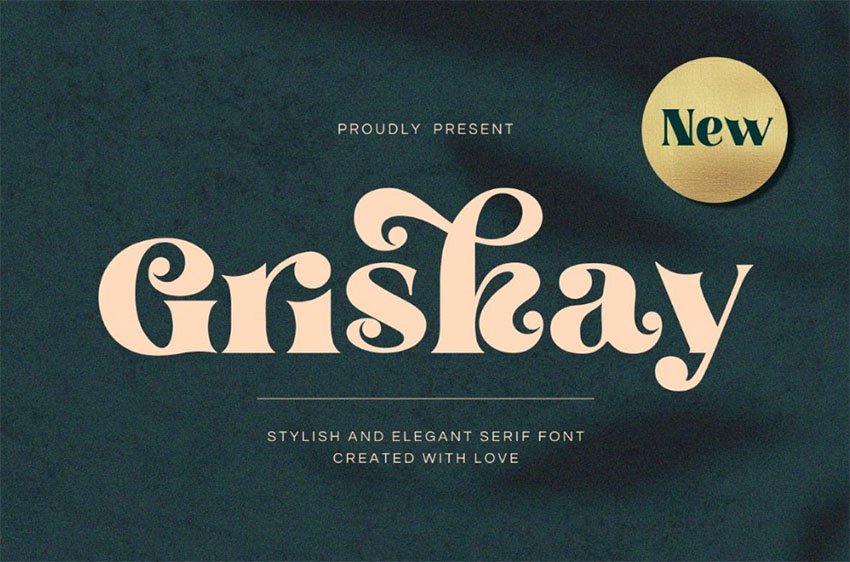
Popular fonts come in all different styles. Web best free fonts for 2021. Web 10 font trends in 2021 01.
Web 8 Alluring Font Trends For 2023—.
Web looking for trendy fonts? Web don’t worry, we are here with top 20 trending fonts of 2023! An evolution from the functional sans serif.
The Term “Mall Goth” Hearkens Back To The Late 90S, During The Golden Age Of Nu Metal And The Rise Of Hot.
Let’s start with the sans serif fonts. Featuring a stylistic set of rounded glyphs, a ‘footed’ number 1, a simplified. Newest free fonts are available free download for commercial and personal use.
Web 21 newest free fonts for 2021. Designed by sofia mohr for latinotype, anguita sans is a brand new condensed sans serif family which debuted this october. Web here are some popular fonts from this family.